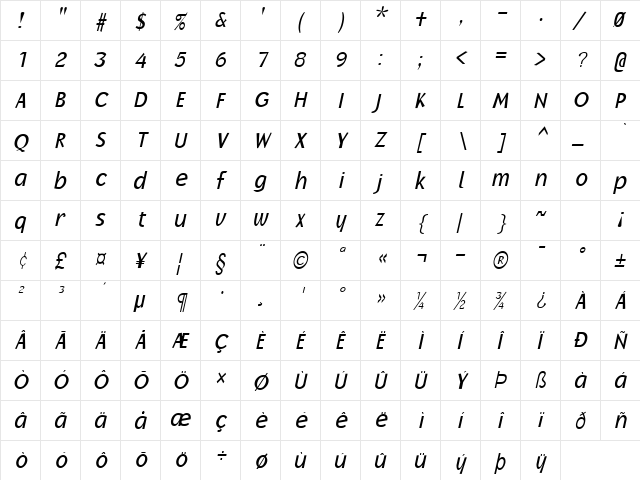
Oak-Ridge-Condensed Italic
Design Context for Oak-Ridge-Condensed Typeface
Oak-Ridge-Condensed is a composed and adaptable typeface that performs quietly and consistently across a wide range of design contexts. The slanted form adds forward momentum and visual energy. The condensed width makes it efficient for tight spaces without sacrificing legibility.
Pro Tip: Use Oak-Ridge-Condensed for emphasis, pull quotes, and subheadings where its slanted energy can add rhythm to the layout.